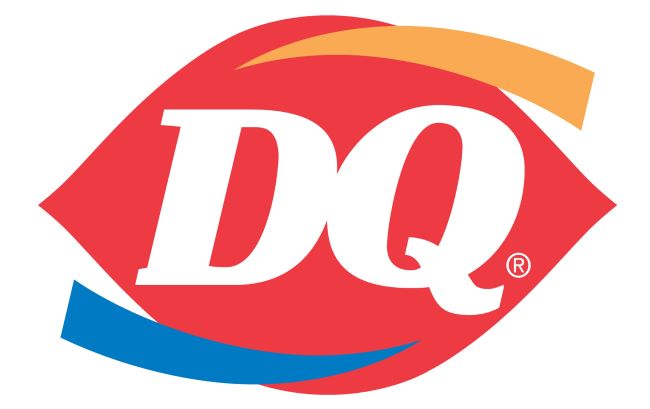
The Dairy Queen Font captures the playful, inviting spirit of one of the world’s most iconic ice cream and fast-food brands. With its smooth curves and clean, bold lettering, the Dairy Queen Font feels fun and family-friendly, perfectly matching the joy of a Blizzard, sundae, or dipped cone. I think this font stands out because it mixes modern clarity with a touch of retro charm, making it instantly recognizable and delightfully appetizing. Its rounded edges and balanced spacing create a warm, approachable look that draws you in—just like the promise of a cool treat on a hot day. I think original font is ITC Clearface Pro Black Italic.
Dairy Queen Font
Designers often search for fonts inspired by the Dairy Queen Font when creating projects that need a blend of friendliness and boldness. It’s perfect for food branding, playful packaging, or restaurant signage that wants to communicate happiness and a love for classic treats. The Dairy Queen Font brings a sense of fun and reliability, making it ideal for anything centered around comfort food and smiles.
Dairy Queen, founded in 1940 and now part of Berkshire Hathaway, has become a global favorite for soft-serve ice cream, burgers, and more. The Dairy Queen Font reflects this tradition of tasty indulgence, celebrating decades of sweet memories and family enjoyment.